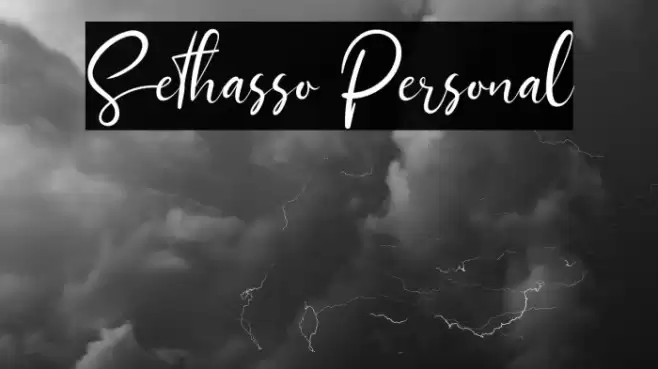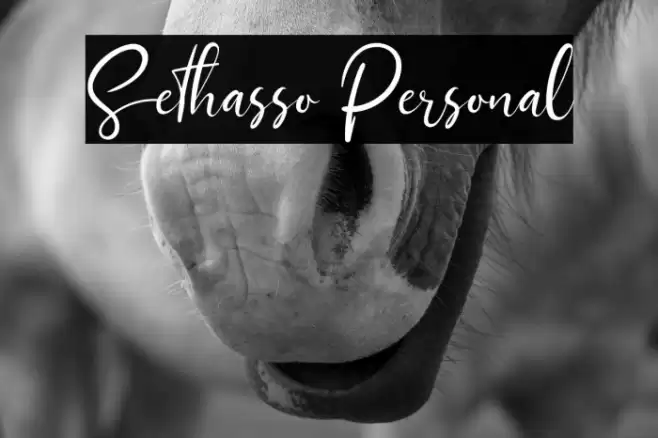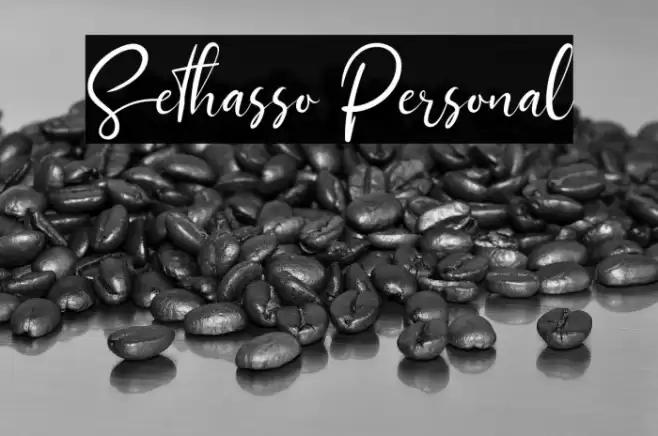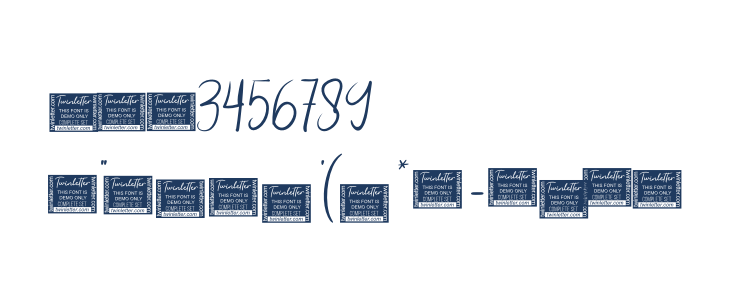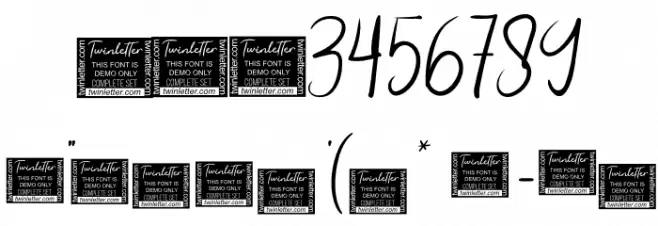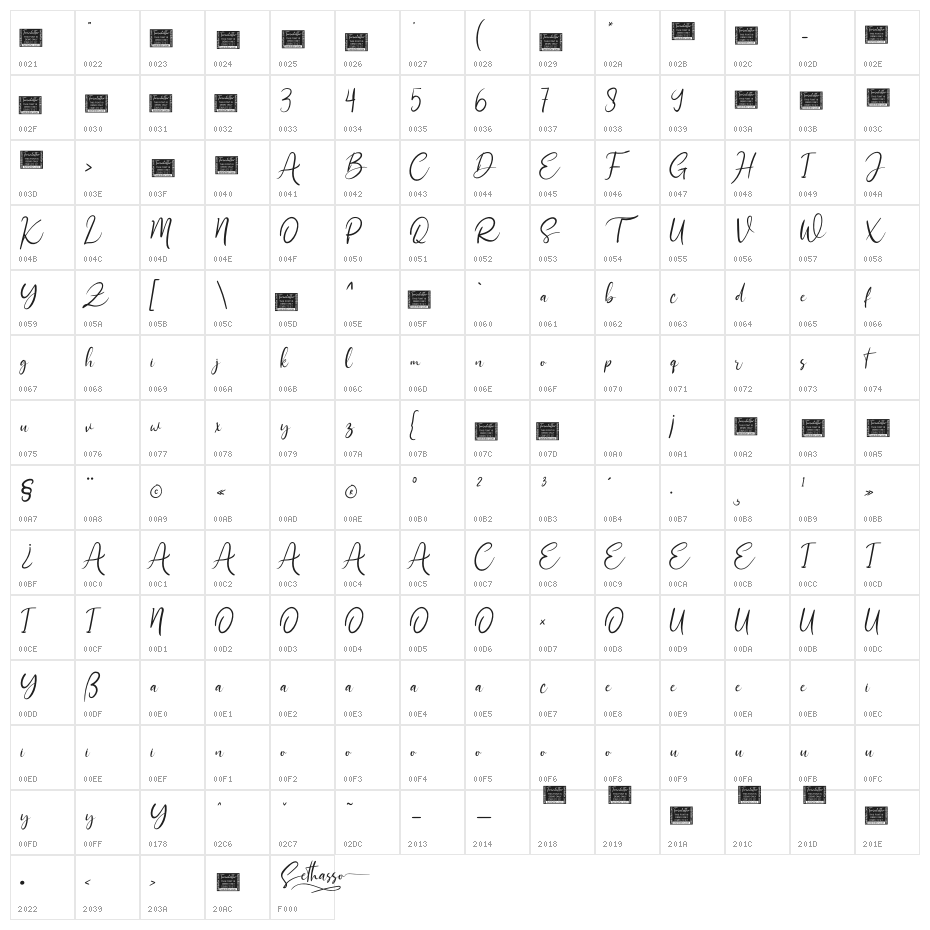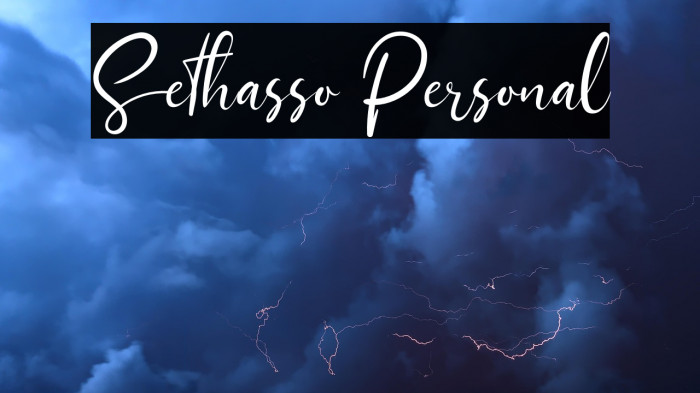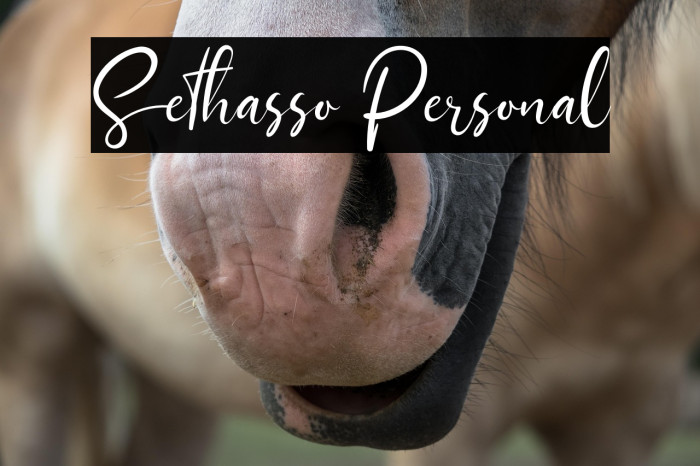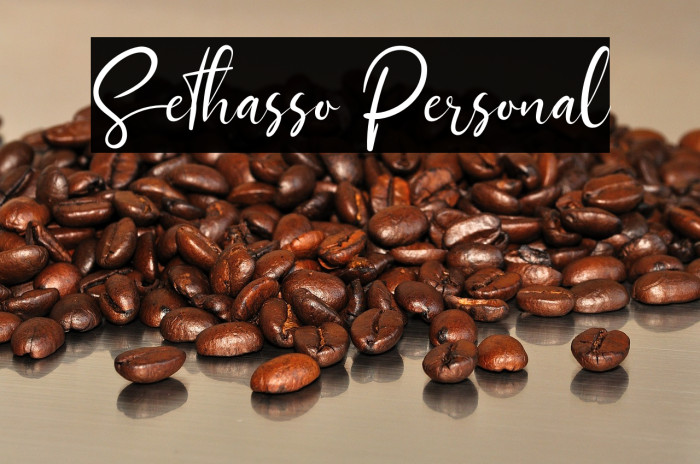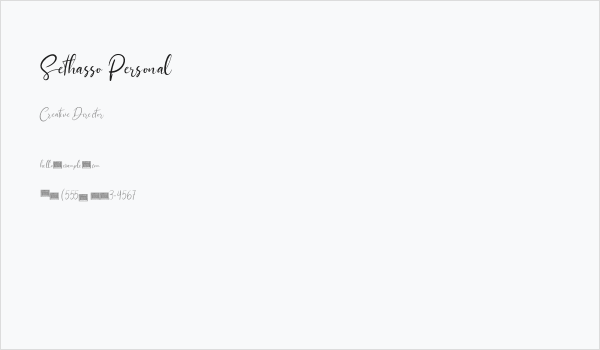
Sethasso Personal Font
Sethasso Personal Description
This font exudes a modern, handwritten style with a flowing, cursive appearance. The characters are elegantly crafted with smooth curves and a consistent stroke width, giving it a sophisticated and artistic feel. The uppercase letters maintain a graceful balance, while the lowercase letters exhibit a charming fluidity. Numbers and special characters are designed to complement the overall aesthetic, ensuring a cohesive look across all text. The font's style is ideal for projects that require a personal touch, such as invitations, greeting cards, or branding materials. Its legibility and unique flair make it a versatile choice for various creative applications.
A modern, handwritten font with elegant, flowing cursive characters from Uncategorized fonts.
- Proposed Projects: Ideal for invitations, greeting cards, branding, and creative projects requiring a personal touch.
- Use Case: Headlines, Logos, Invitations